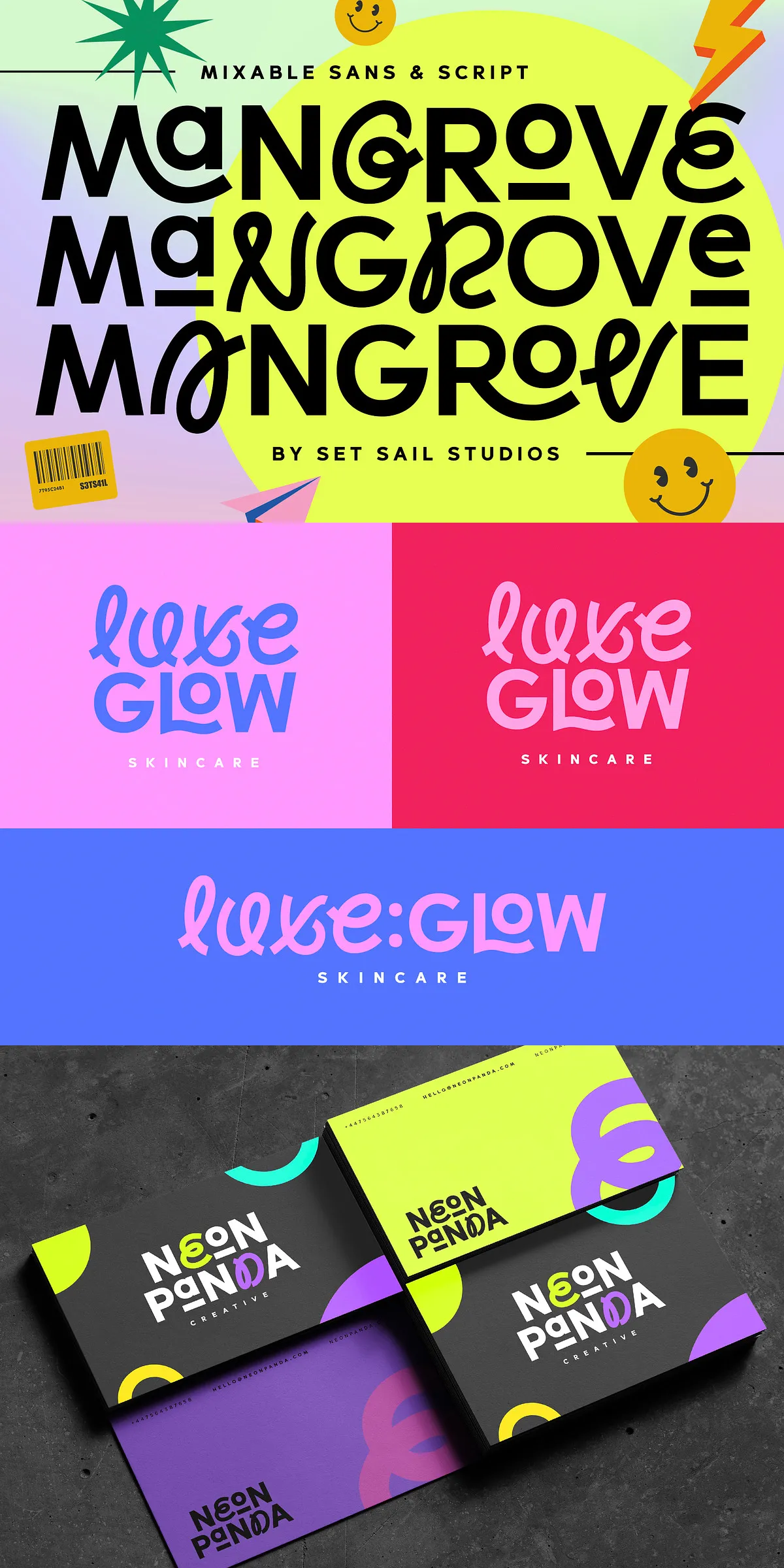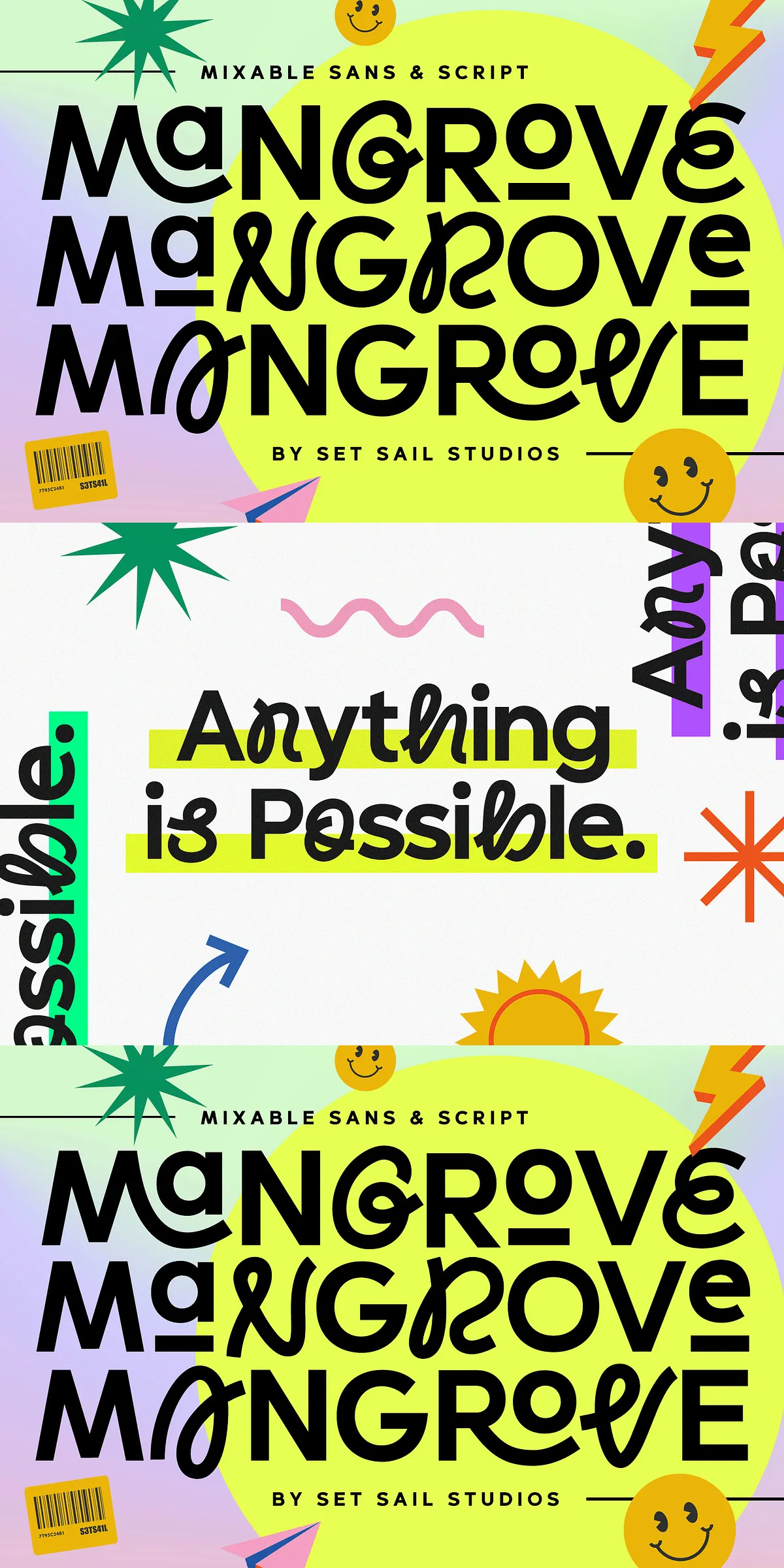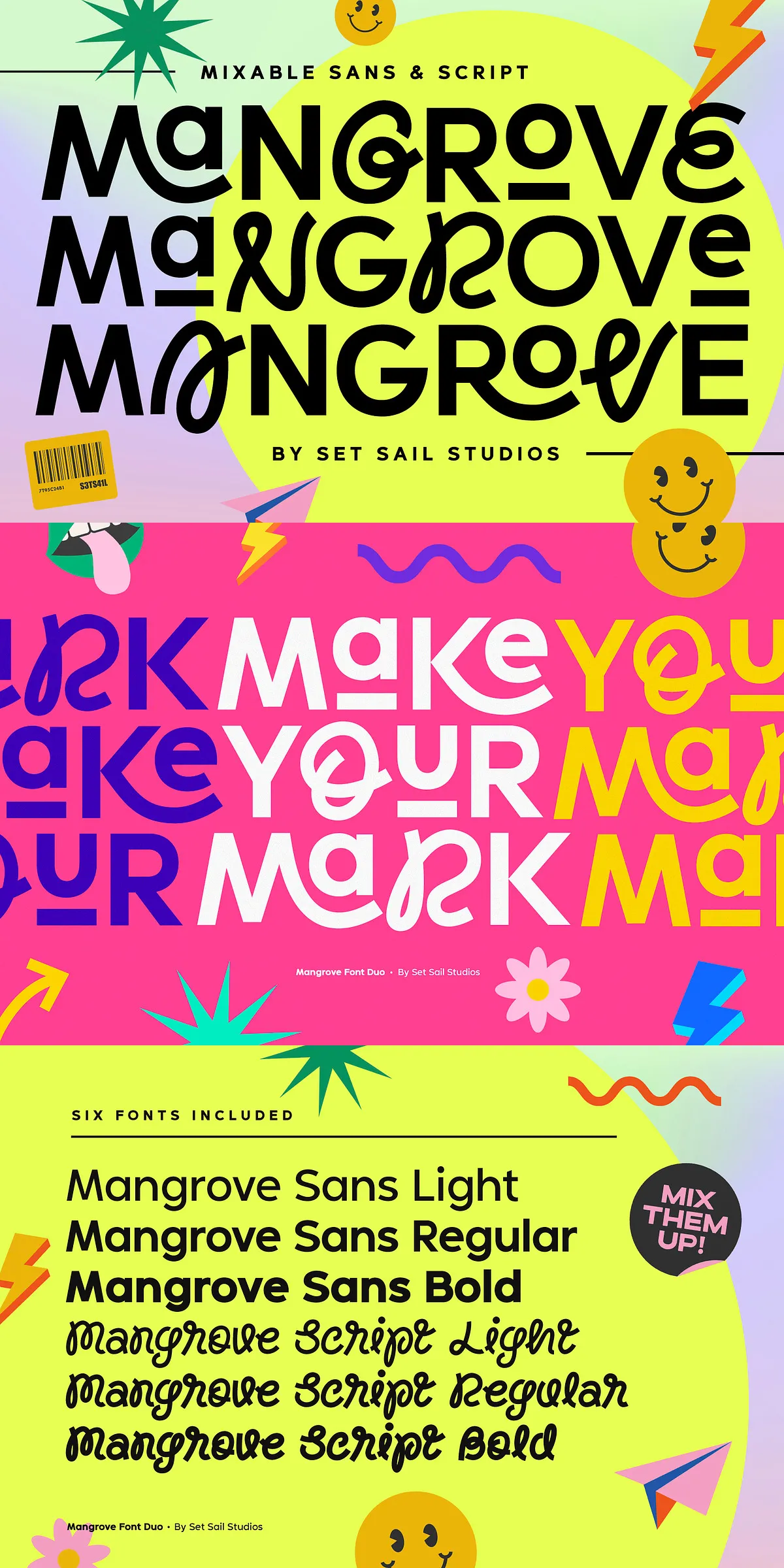
Unlock endless creative potential with Mangrove Font Duo — a vibrant, character-driven font pairing that marries the bold, modern spirit of a sans serif with the graceful movement of a handwritten script. Designed for designers who crave personality, versatility, and visual impact, Mangrove isn’t just a font — it’s a dynamic design tool that transforms your words into captivating stories.
Why Mangrove Stands Out: The Power of the Perfect Pair
Unlike standard font families that demand compromise, Mangrove gives you the freedom to experiment, blend, and surprise. The bold, clean Mangrove Sans and the elegant, flowing Mangrove Script are engineered to work independently and harmonize seamlessly when paired together. Whether you’re layering a script letter into a sans serif headline or using the script for emphasis, the duo delivers cohesive, professional results — every time.
The Magic of Pairing: Effortless, Bold, and Beautiful
Try this: insert a looping script ‘e’ into the middle of a sans serif word. Watch as the contrast adds rhythm and energy. Use the swooping ligatures in the script font to create fluid transitions between letters. Experiment with uplifting small caps in the sans font — they add a whimsical lift, turning even simple text into visual poetry. With six distinct styles (3 weights per font), you can control tone, mood, and hierarchy with precision — all without leaving your design workspace.
Designed for Real-World Creativity
Mangrove isn’t just beautiful — it’s built for action. Every character has been meticulously crafted to deliver maximum impact across a variety of media and formats.
Best Use Cases to Ignite Your Projects
- Brand Identity & Logos — Create memorable, expressive logos that stand out with personality and movement.
- Packaging & Product Design — Add playful flair to labels, boxes, and product tags for a fresh, distinctive look.
- Social Media Graphics & Posts — Command attention with dynamic, expressive typography for Instagram, TikTok, and Facebook.
- Editorial & Print Design — Perfect for magazines, zines, posters, and flyers where visual rhythm matters.
- Wedding Invitations & Greeting Cards — Infuse warmth and elegance into celebrations with a handcrafted, joyful feel.
- Interactive Web & App UI — Use with care for headings and CTAs to bring a unique, human touch to digital experiences.
Technical Brilliance, Built for Professional Use
Mangrove delivers not just style, but reliability. Behind its playful exterior lies robust technical structure, optimized for smooth integration into modern design tools and digital platforms.
- Three Weights per Font — Light, Regular, and Bold for nuanced visual hierarchy and style control.
- Dynamic Ligatures & Alternates — Access elegant script ligatures and stylistic alternatives to elevate your design without extra effort.
- Clean Vector Outlines & Consistent Metrics — Crisp at every size, from mobile screens to large-format prints.
Elevate Your Design with Every Letter
Typography isn’t just about reading — it’s about feeling. Mangrove Font Duo makes every word feel intentional, expressive, and alive. It’s the perfect tool for creatives who want to move beyond the predictable and inject energy, charm, and soul into their projects.